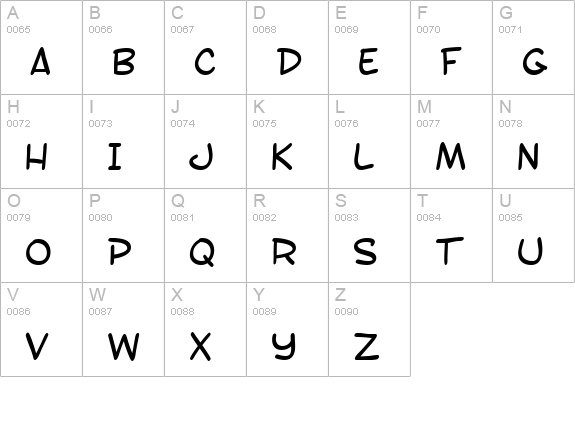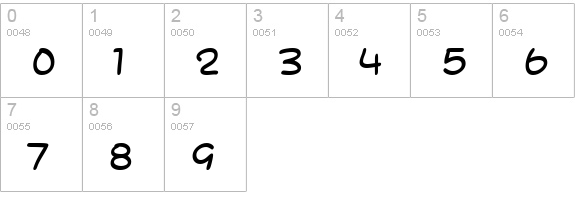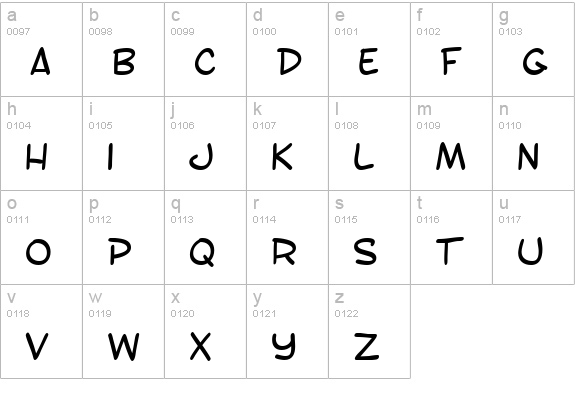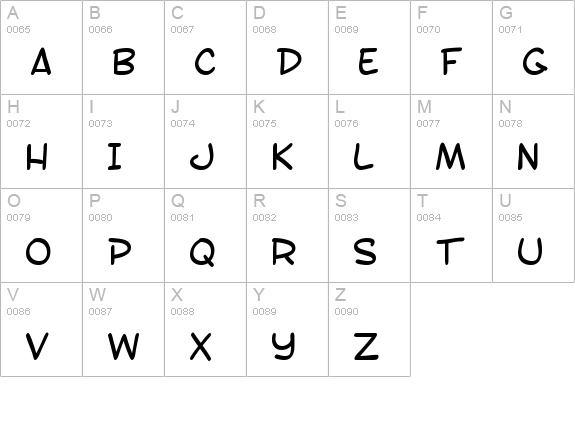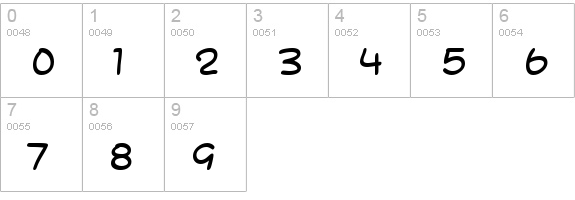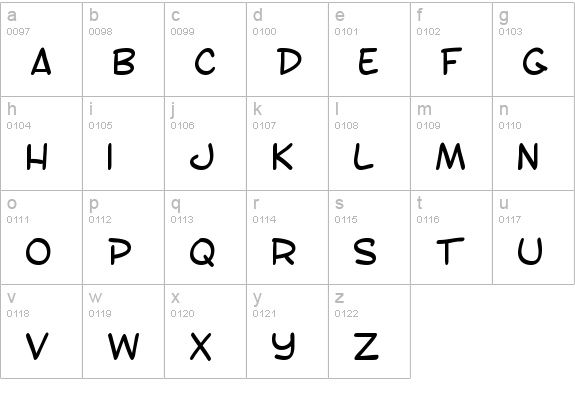
SF Toontime Font Details
SF Toontime is a whimsical and playful font that brings a touch of childhood nostalgia to your designs. With its fun and lively letterforms, this font captures the essence of animated cartoons and comic books, making it perfect for projects that require a lighthearted and cheerful aesthetic. The characters in SF Toontime have a hand-drawn quality, giving them a unique and organic feel. The curves are smooth and the lines are fluid, creating a sense of movement and energy. Each letter is carefully crafted to maintain legibility while still retaining its playful charm. One of the best things about SF Toontime is that it is free. Yes, you read that right! This delightful font is freely available to download at FontsMarket.com. You can bring a dose of fun and creativity to your projects without breaking the bank. Whether you're designing a children's book, creating a cartoon logo, or crafting a birthday invitation, SF Toontime is the perfect choice. With its wide range of characters, including uppercase and lowercase letters, numbers, punctuation marks, and special symbols, SF Toontime offers versatility and flexibility. You can easily mix and match different styles to create a unique and customized look. So why wait? Download SF Toontime today and let your imagination run wild. Bring a playful and animated touch to your designs with this charming font. Whether you're a professional designer or a hobbyist, SF Toontime is the ideal tool to unleash your creativity. Remember, it's free and just a click away at FontsMarket.com. Happy designing!